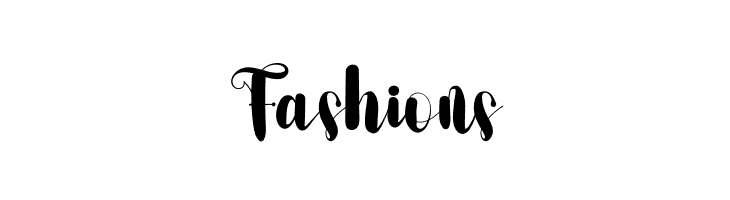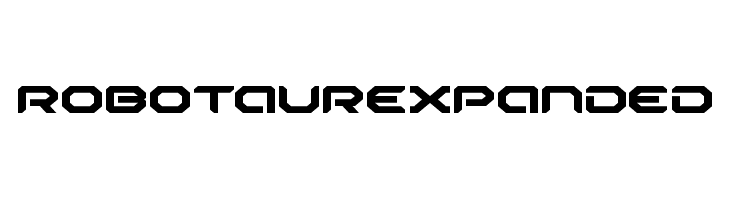
A classic serif font with high contrast and elegant serifs.
A flowing, cursive script font with elegant, connected characters.
A graceful script font with fluid, connected strokes and elegant curves.
A modern, bold, rounded sans-serif font with a clean and geometric design.
A classic serif font with elegant, elongated strokes and high contrast.
A bold, geometric font with sharp angles and an expanded width.
A bold, flowing script font with elegant curves and modern sophistication.
A pixelated, grid-based font reminiscent of retro digital displays.
A bold, pixelated font with a retro digital aesthetic.